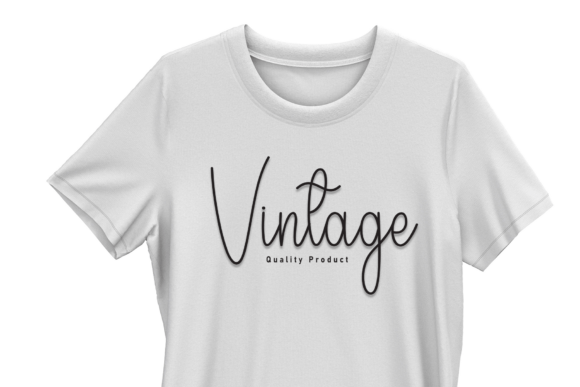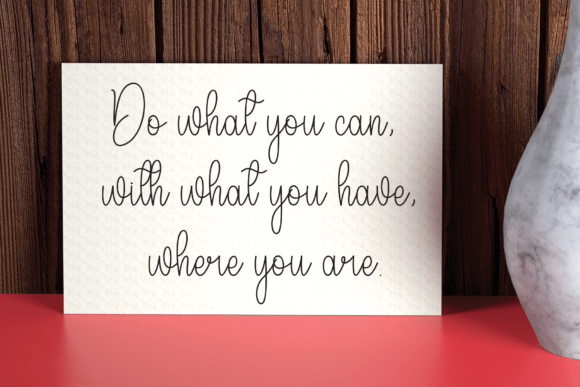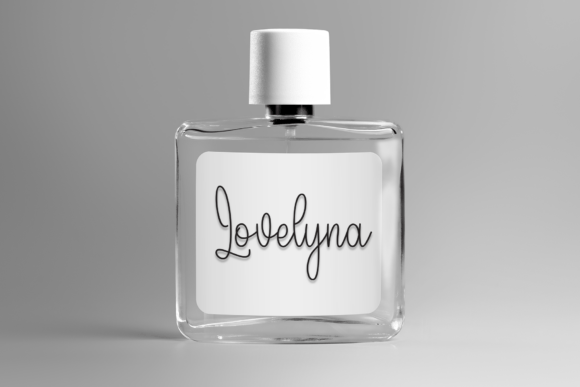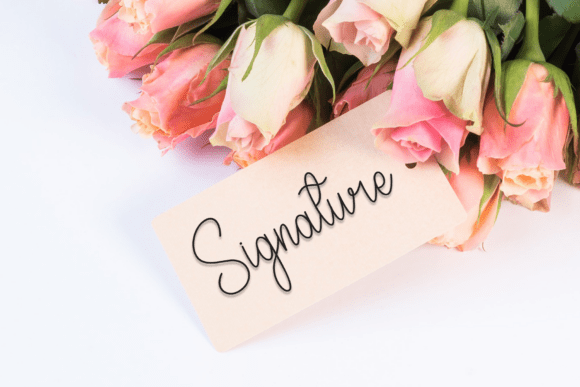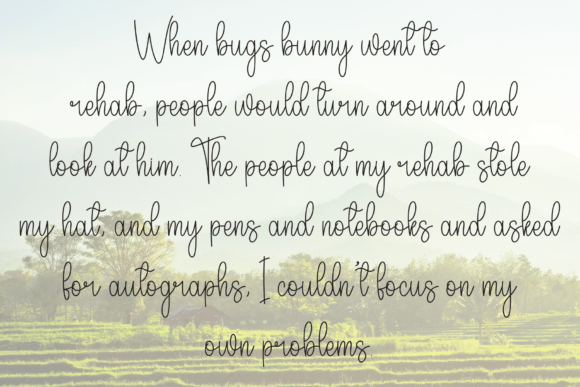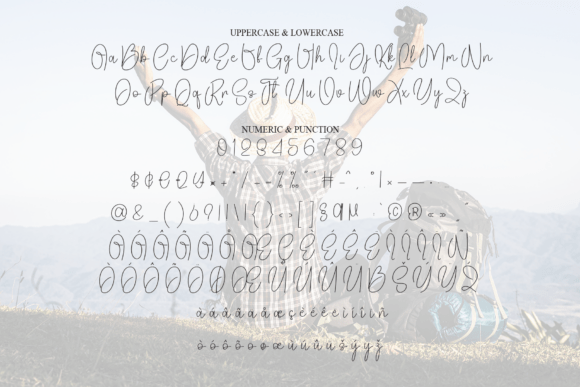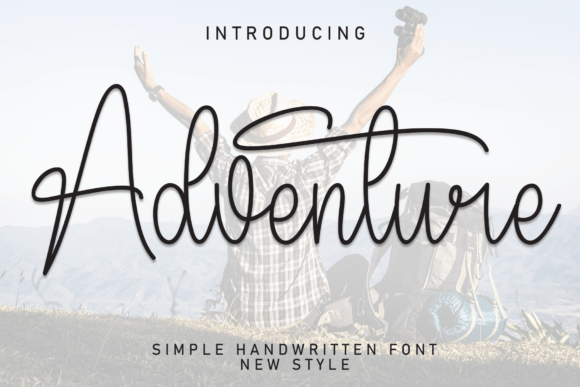
Introducing Adventure Font: Elevate Your Designs with Elegance and Playfulness
Are you on the lookout for a font that can add a touch of modern elegance and playfulness to your designs? Look no further than Adventure Font, a stylish handwritten script font that is sure to take your projects to the next level. With its fluid strokes and charming curves, Adventure Font brings a personal feel to any design, making it ideal for a wide range of applications, from logos and packaging to invitations and more.
The Perfect Blend of Sophistication and Creativity
Adventure Font is designed to blend modern elegance with a playful touch, making it the perfect choice for designers and crafters who want to add a touch of sophistication and creativity to their work. The font’s fluid strokes and charming curves give it a unique and stylish look that is sure to capture the attention of your audience. Whether you’re working on a logo, packaging, or invitation, Adventure Font is the perfect choice for adding a personal touch to your design.
Key Features of Adventure Font
• Fluid Strokes: Adventure Font features fluid strokes that give it a smooth and elegant look.
• Charming Curves: The font’s charming curves add a playful touch to any design.
• Handwritten Script: Adventure Font is a handwritten script font that brings a personal feel to any design.
• Modern Elegance: The font’s modern elegance makes it perfect for a wide range of applications, from logos and packaging to invitations and more.
• Playful Touch: Adventure Font’s playful touch adds a creative and whimsical feel to any design.
Ideal for a Wide Range of Applications
Adventure Font is ideal for a wide range of applications, including:
• Logos: Add a touch of elegance and sophistication to your logo with Adventure Font.
• Packaging: Make your packaging stand out with the font’s unique and stylish look.
• Invitations: Add a personal touch to your invitations with Adventure Font’s charming curves and fluid strokes.
• Branding: Use Adventure Font to create a consistent brand image that is both elegant and playful.
Why Choose Adventure Font?
There are many reasons why you should choose Adventure Font for your next project. Here are just a few:
• Unique and Stylish: Adventure Font is a unique and stylish font that is sure to capture the attention of your audience.
• Versatile: The font is versatile and can be used for a wide range of applications, from logos and packaging to invitations and more.
• Elegant and Playful: Adventure Font blends modern elegance with a playful touch, making it perfect for designers and crafters who want to add a touch of sophistication and creativity to their work.
In conclusion, Adventure Font is a stylish handwritten script font that is sure to elevate your designs with elegance and playfulness. With its fluid strokes and charming curves, Adventure Font brings a personal feel to any design, making it ideal for a wide range of applications. Whether you’re a designer or crafter, Adventure Font is the perfect choice for adding a touch of sophistication and creativity to your work.